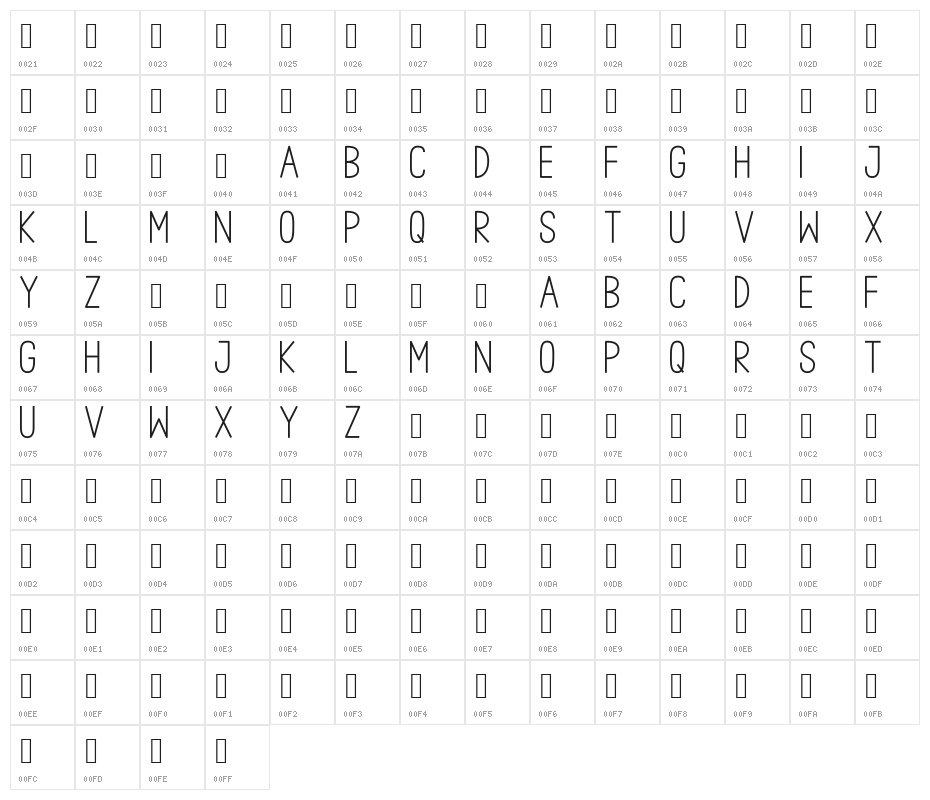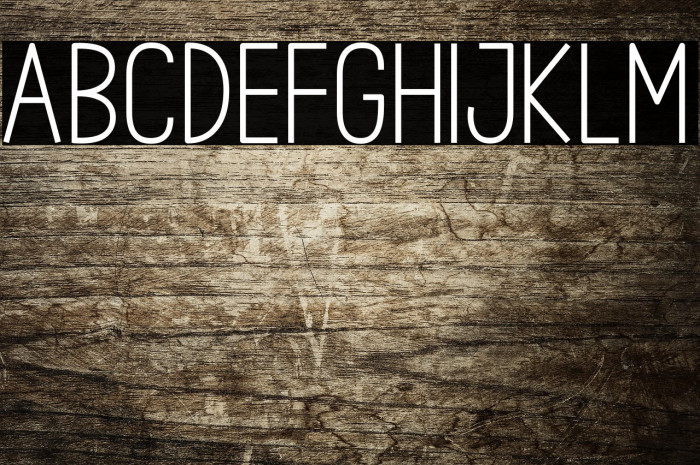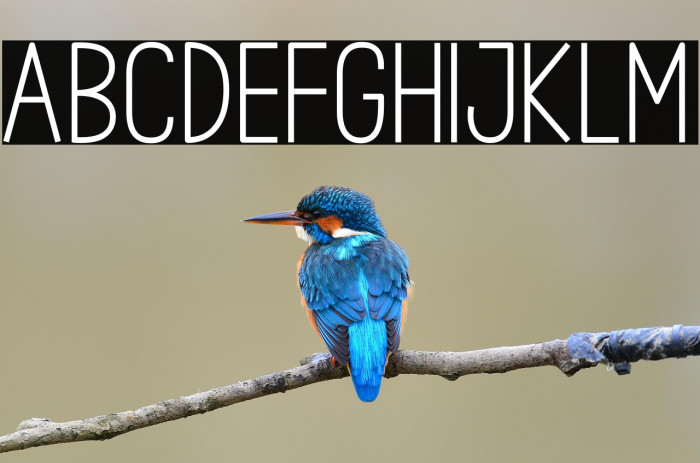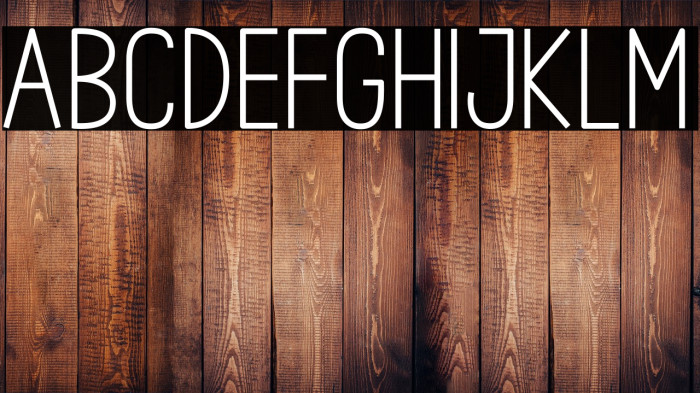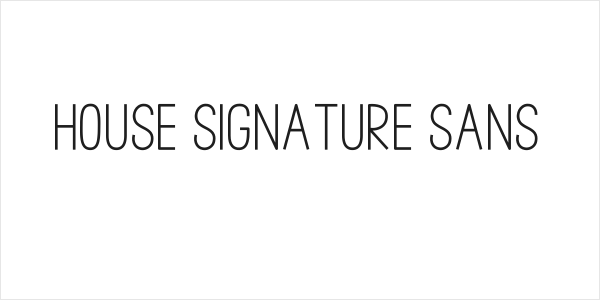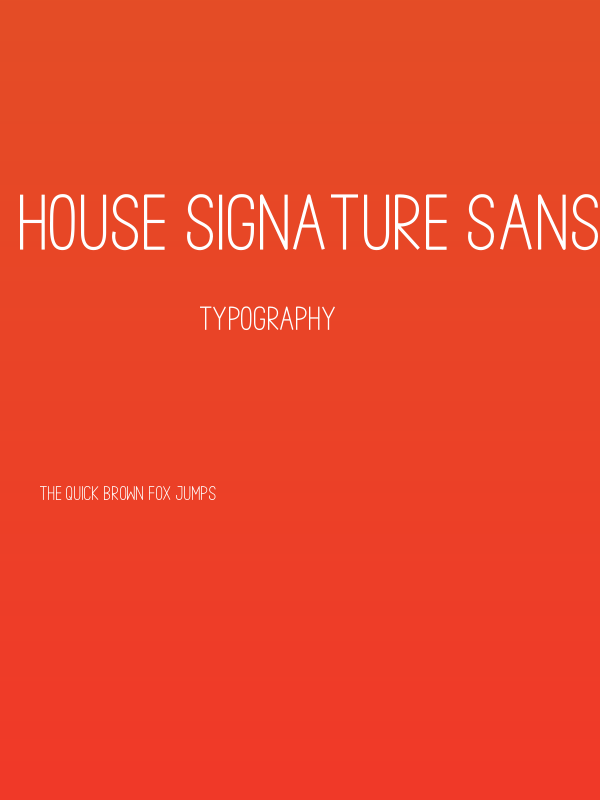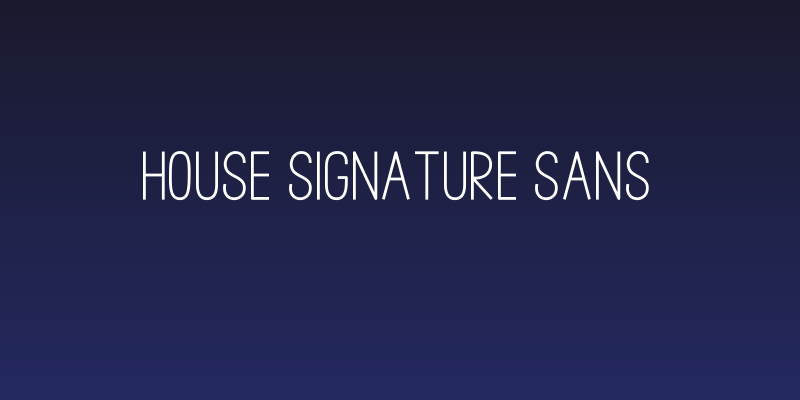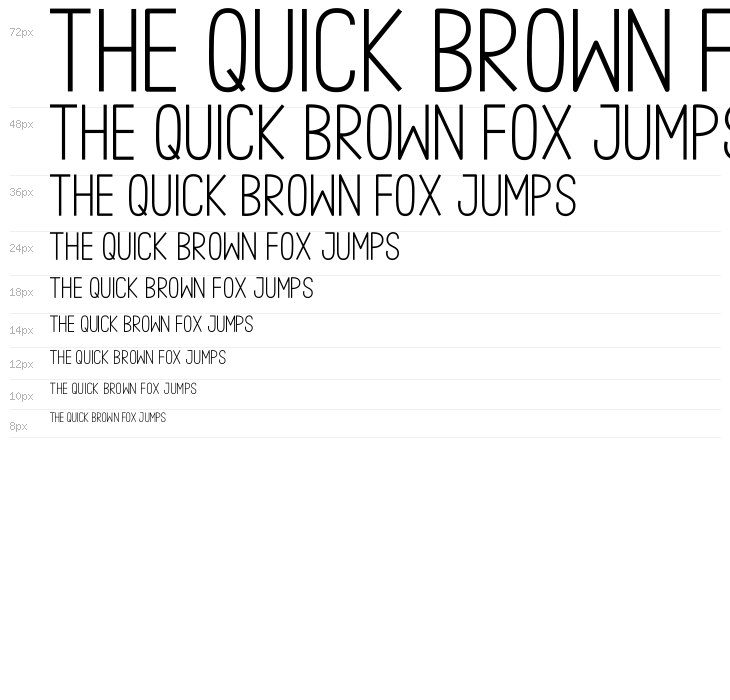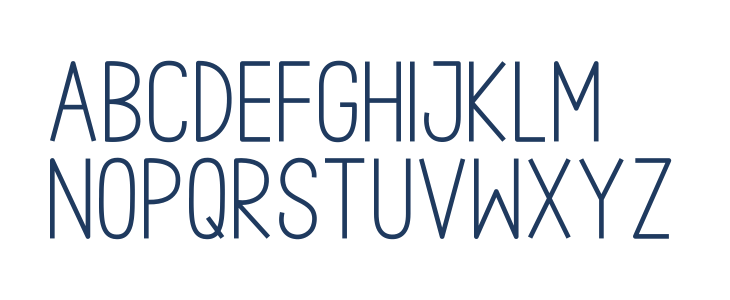
House Signature Sans Font
House Signature Sans Description
This font features a clean and modern sans-serif style with a geometric structure. The characters are uniform in width, giving it a monospaced appearance, although it is not strictly monospaced. The lines are thin and consistent, providing a sleek and minimalist look. The uppercase and lowercase letters maintain a uniform height, enhancing readability and creating a balanced visual appeal. The numbers and special characters follow the same design principles, ensuring a cohesive look across all glyphs. This font is ideal for projects that require a contemporary and uncluttered aesthetic.